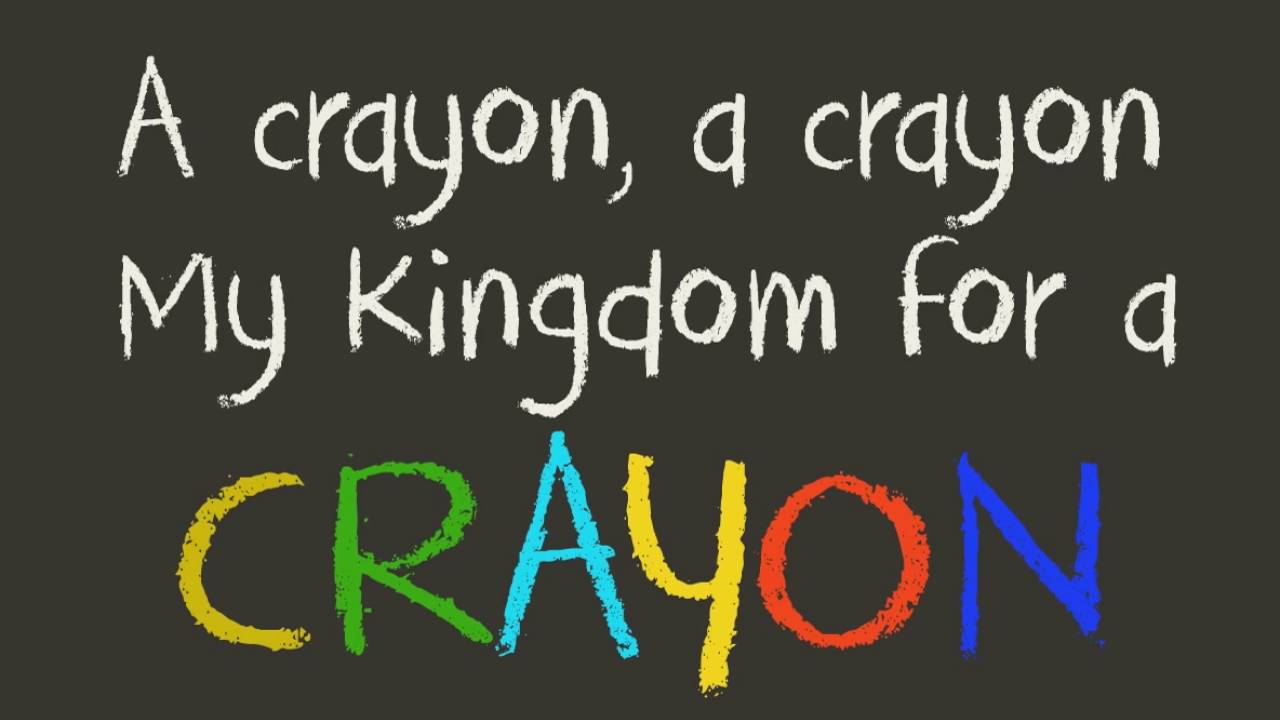
Cf Crayons Font Dafont
Cf Crayons De Plomb Font Dafont Fonts cf crayons font download for free, in ttf for windows and mac! fonts cf crayons in graffiti category. Description cf crayons regular is a font by cloutierfontes, designed by steve cloutier in 2014. license for commercial use, you need buy a license at: cloutierfontes.ca thank you!. 'find my font' is an easy to use application for identifying fonts in digital images. Cf crayons font download is available free from fontget. cf crayons is a script type font that can be used on any device such as pc, mac, linux, ios and android.
Cf Crayons De Plomb Font Dafont 'find my font' is an easy to use application for identifying fonts in digital images. Cf crayons font download is available free from fontget. cf crayons is a script type font that can be used on any device such as pc, mac, linux, ios and android. Free download of cf crayons font. released in 2014 by cloutierfontes and licensed for personal use only. use our font generator to create a custom image that you can download. Free download cf crayons font file in ttf font type, (cf crayons.ttf) from script category with the handwritten style. download truetype font for using on design projects and websites. this font is licensed by the author for free for only personal use. This playful and textured font mimics the look of crayon writing, featuring uneven strokes and a hand drawn appearance. the characters are bold and slightly irregular, giving a whimsical and informal feel. • free for personal use. (non lucrative purposes) for commercial use and have more characters (for profit) purchase a license.
Flavored Crayons Font Dafont Free download of cf crayons font. released in 2014 by cloutierfontes and licensed for personal use only. use our font generator to create a custom image that you can download. Free download cf crayons font file in ttf font type, (cf crayons.ttf) from script category with the handwritten style. download truetype font for using on design projects and websites. this font is licensed by the author for free for only personal use. This playful and textured font mimics the look of crayon writing, featuring uneven strokes and a hand drawn appearance. the characters are bold and slightly irregular, giving a whimsical and informal feel. • free for personal use. (non lucrative purposes) for commercial use and have more characters (for profit) purchase a license.